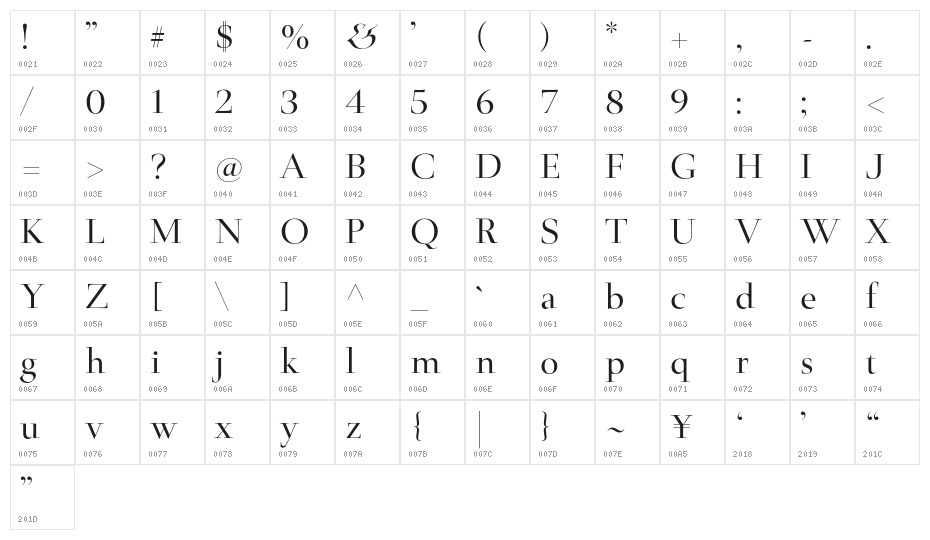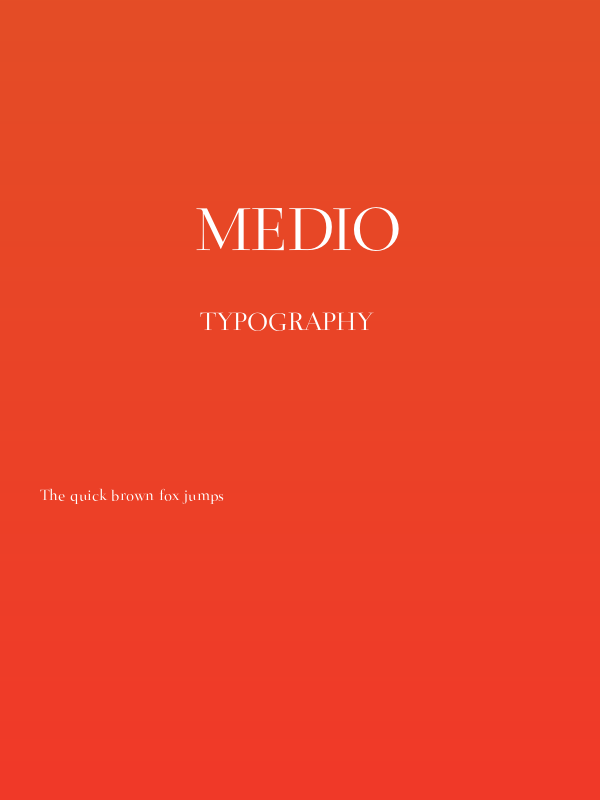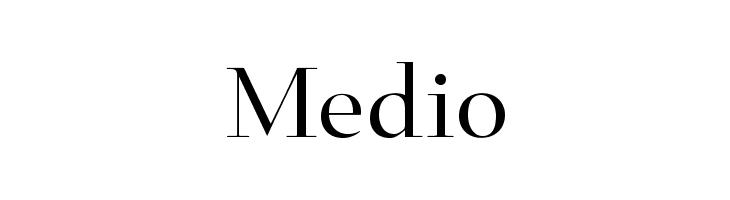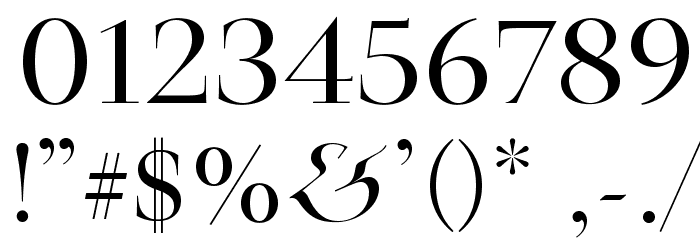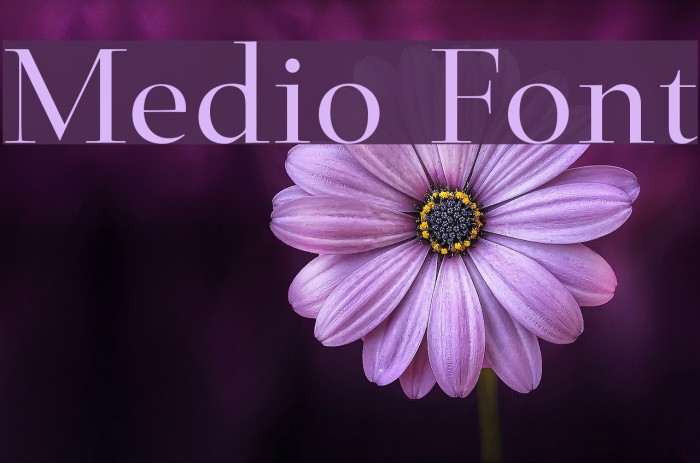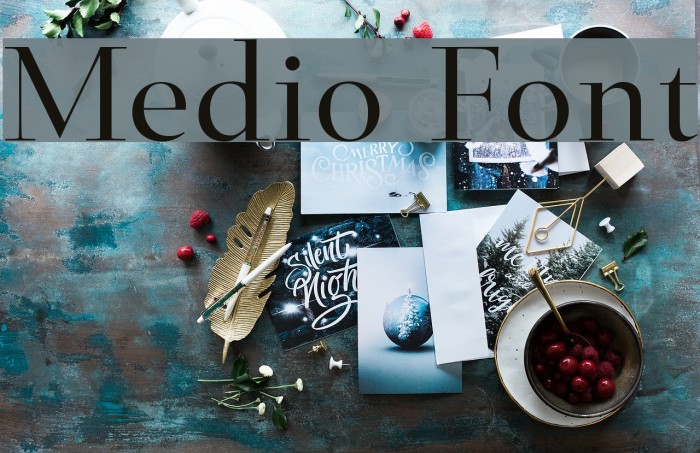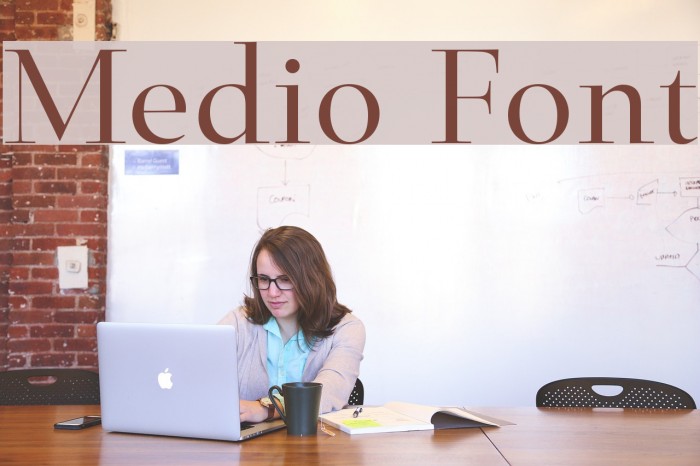
Medio Font
✎ Serif
Medio Description
This font exhibits a classic serif style with elegant and refined strokes. The characters have a high contrast between thick and thin lines, giving it a sophisticated and timeless appearance. The serifs are sharp and pronounced, adding to the font's traditional feel. The uppercase letters are stately and well-proportioned, while the lowercase letters maintain a graceful flow. The numerals are clear and distinct, complementing the overall aesthetic. Special characters are designed with the same attention to detail, ensuring consistency throughout the typeface.
| Overall Style | Classic |
| Use Case | Headlines, Body text, Logos |
| Proposed Projects | Ideal for editorial design, book covers, formal invitations, and branding projects that require a touch of elegance and tradition. |